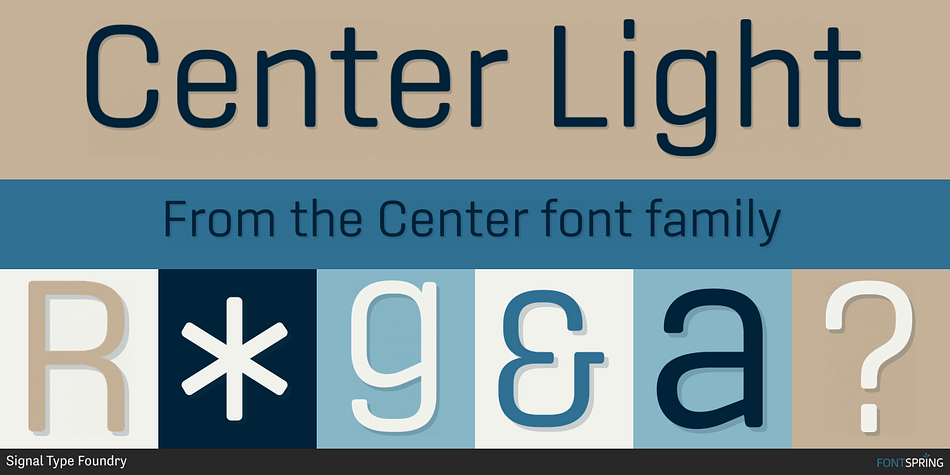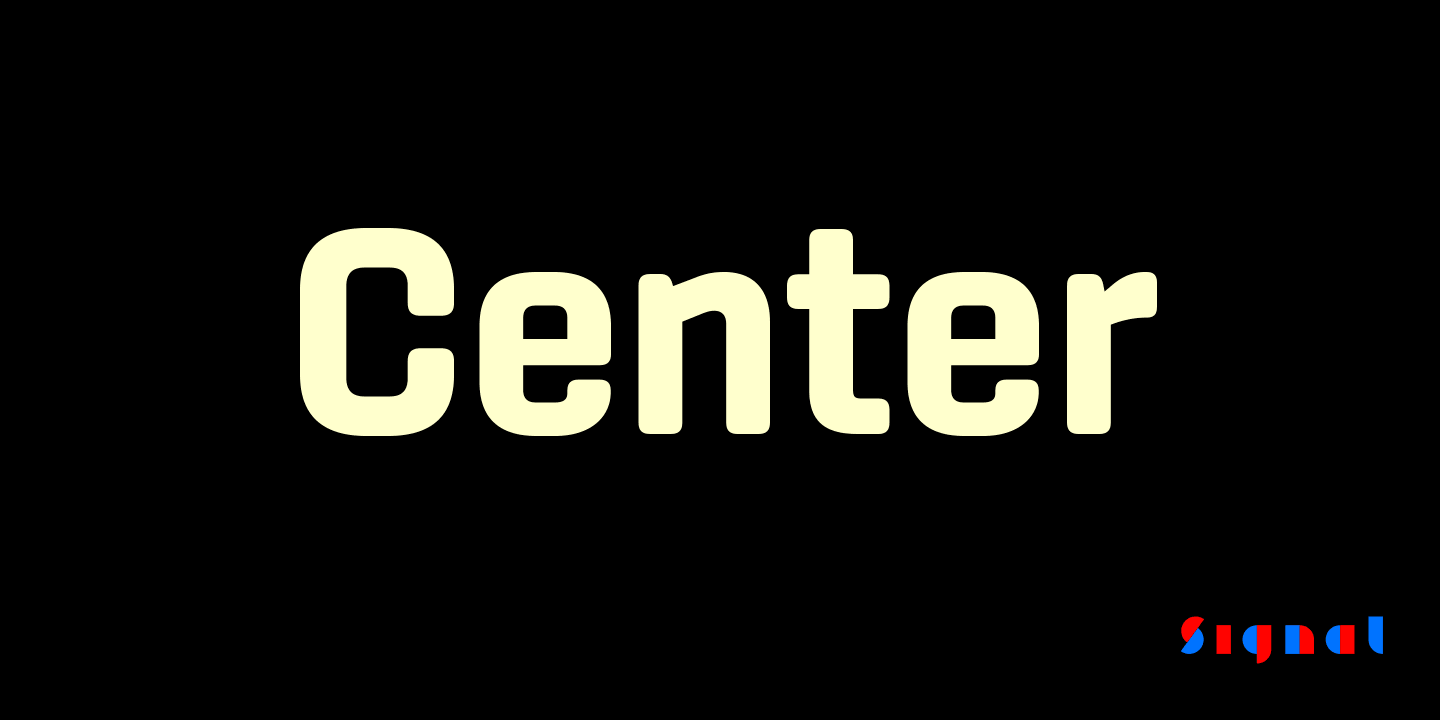
Center Light
Designed by Max Phillips, Center is a sans serif font family. This typeface has eighteen styles and was published by Signal Type Foundry.
The future is squarish. Georg Trump knew it in 1930 when he designed City. Hermann Zapf knew it in 1952 when he designed Melior. Aldo Novarese knew it in 1962 when he designed Eurostile. Center isn’t about to argue. Based on a rounded rectangle, its geometry has been subtly refined for smoother reading. Its branches are angled in homage to OCR-A. Its terminals are gently softened. A combination of open counters, unequivocal curves, and ruler-straight vertical and horizontal strokes suit it admirably for onscreen display. This redrawn and expanded version of the best-selling text/display family now boasts nine weights, ranging from the taut, elegant Thin to the massive Ultra, each with a matching italic. Rounding of terminals is subtler in this new release, and forms have been optimised for use in longer texts. Tabular figures duplex across all weights, case-sensitive forms keep punctuation in line, and a full range of diacritics provides support for over 130 languages. And, of course, it gets on well with its sharp-edged sibling, Sinter.